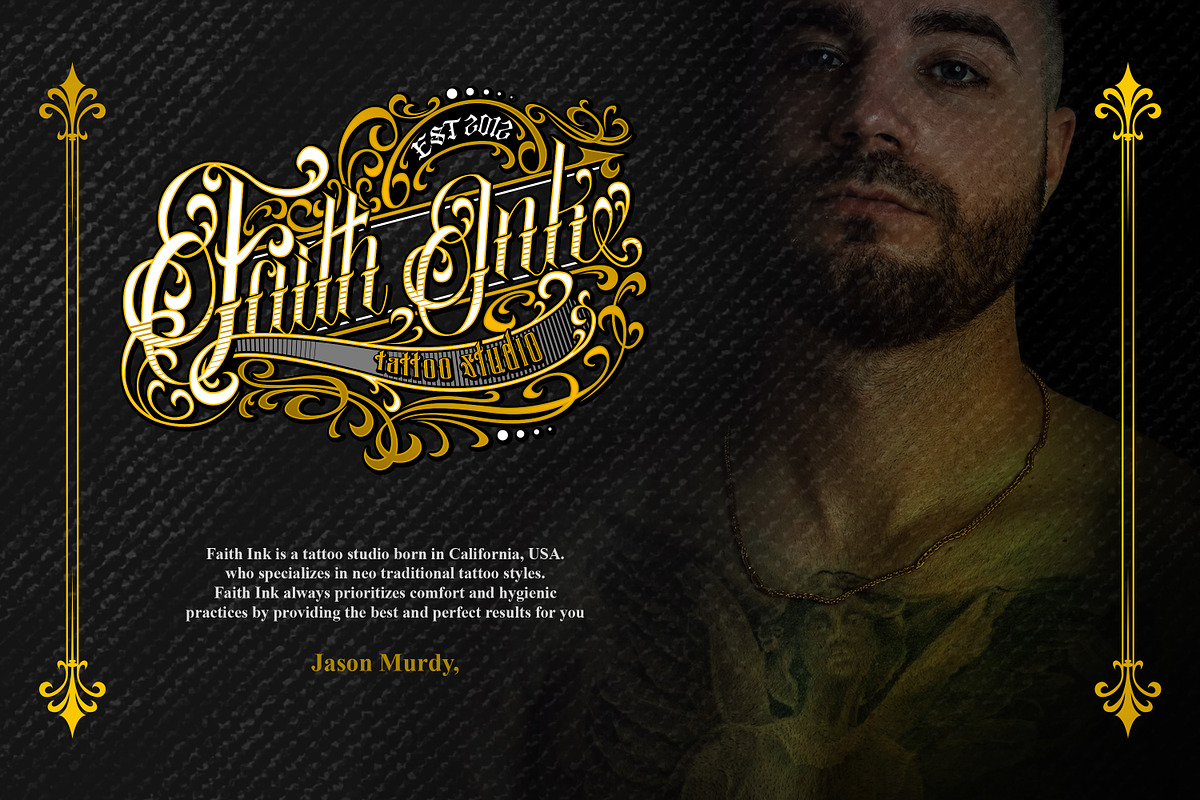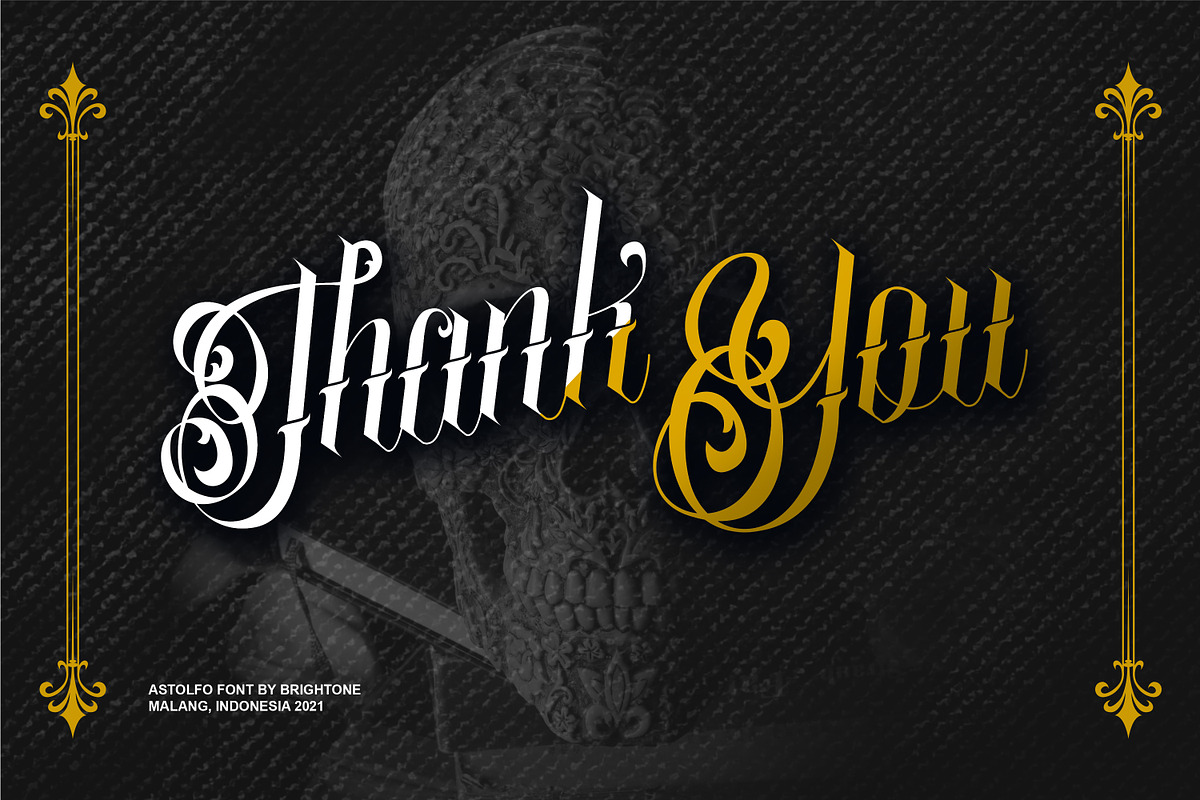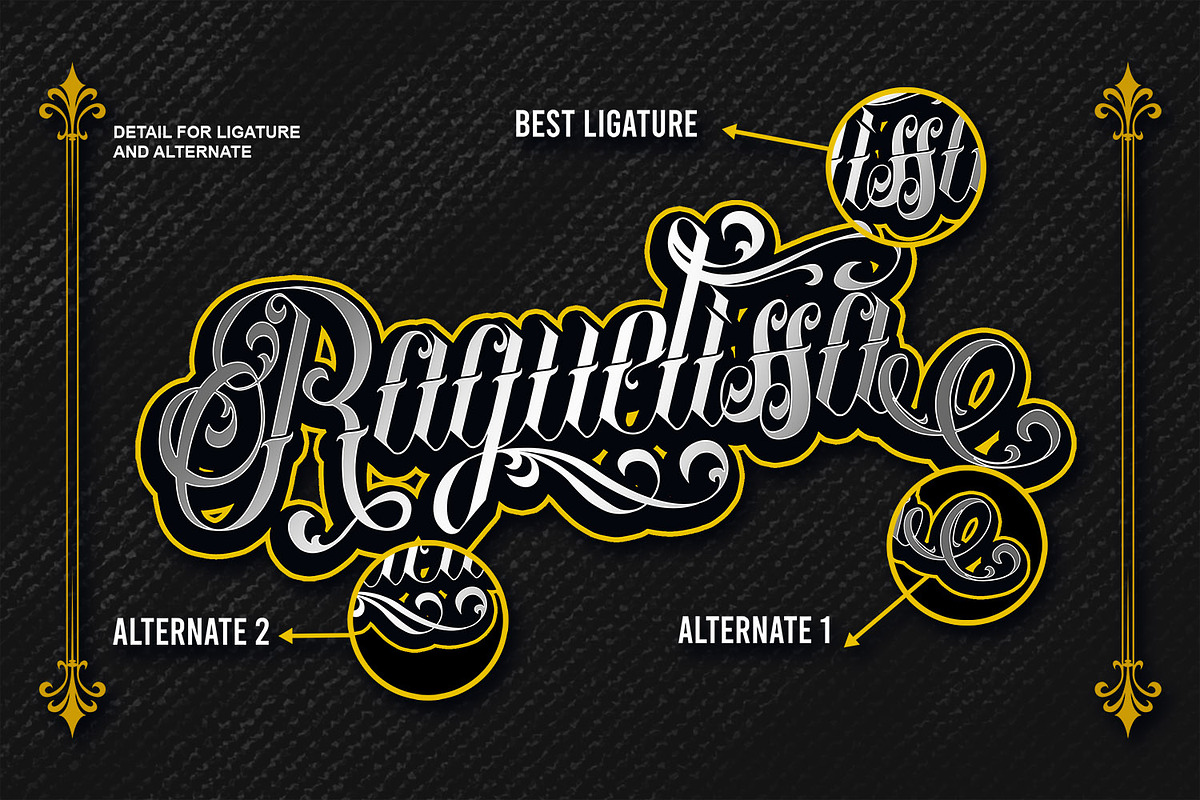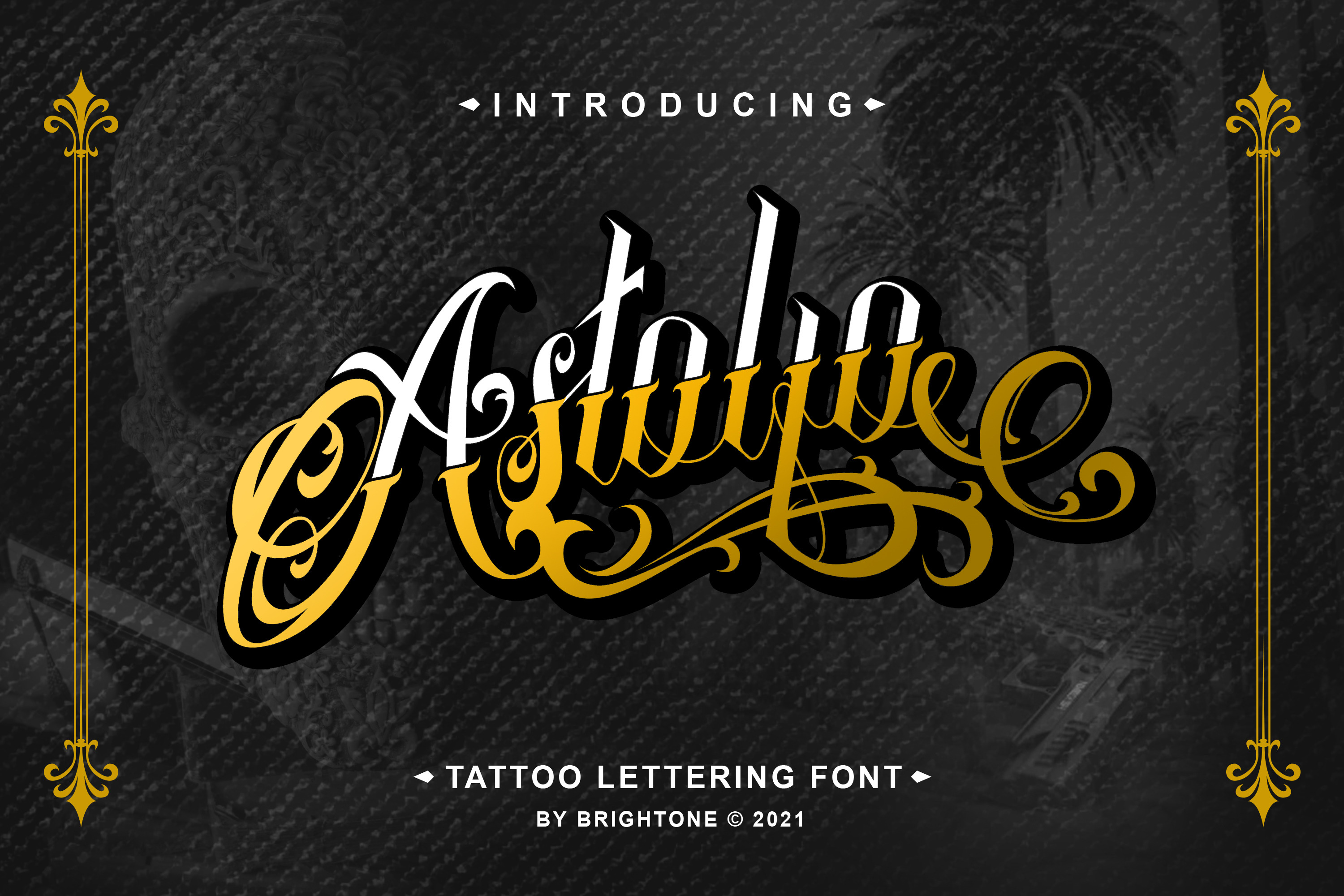
Astolfo - Tattoo Font
ASTOLFO is script tattoo style font includes uppercase letters, numerals, a large range of punctuation, accented and 2 alternate lowercase with good swash. Professional script font with tattoo style for your logo lettering, shirt design, logo tattoo studio, tattoo design, branding, etc